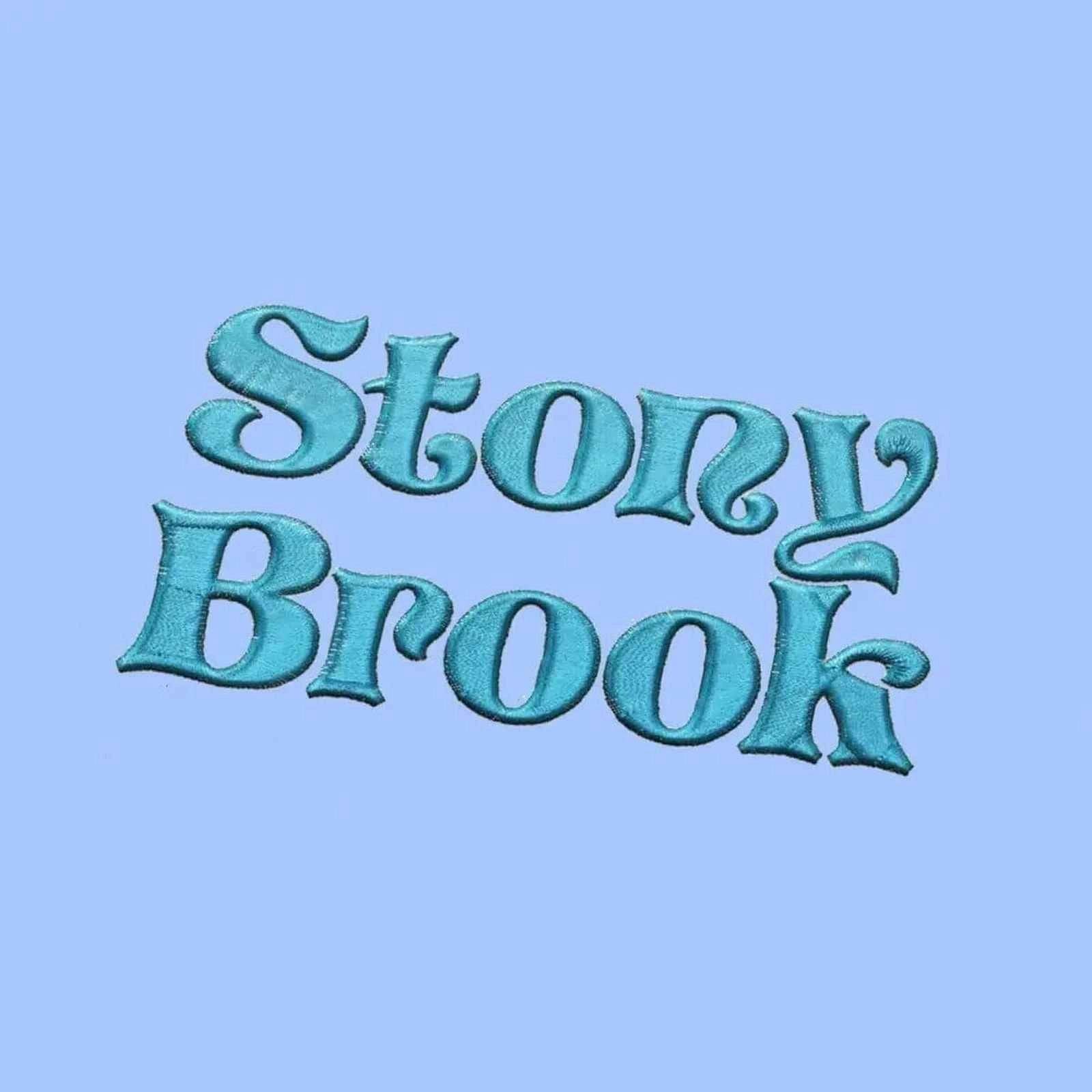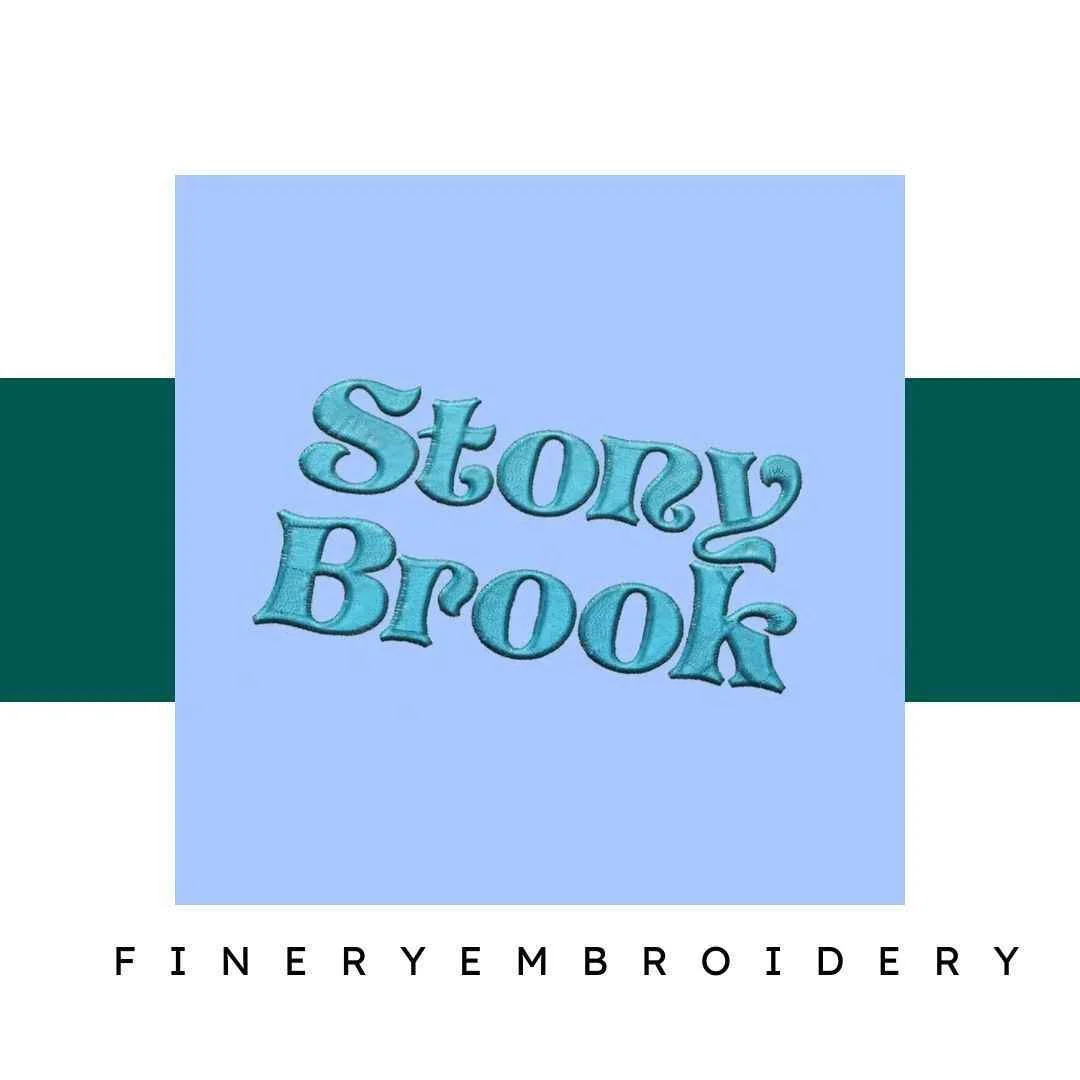
Transform your embroidery projects into masterpieces with the Stony Brook Embroidery Alphabet Font Set, where elegance meets creativity!
Introducing the Stony Brook Embroidery Alphabet Font Set! This exquisite collection is designed to enhance every embroidery project with its elegant and high-quality fonts. Whether you're personalizing clothing, accessories, or home decor, this font set is your ticket to adding a unique touch that stands out. Imagine the joy of making your creations truly your own!
Why You'll Love This Design
The Stony Brook Embroidery Alphabet Font Set is meticulously crafted, allowing you to elevate your embroidery game to new heights. Each font is thoughtfully designed, giving your projects a sophisticated vibe. From stunning monograms to elegant phrases, this collection offers a wide range of options that will inspire you to create with confidence and flair.
Creative Applications
The versatility of the Stony Brook Embroidery Alphabet Font Set is unmatched! Use it to personalize gifts, create unique home accents, or add flair to your fashion items. Let your imagination run wild as you explore the endless possibilities of this font set. It's perfect for both seasoned embroiderers and creative novices alike!
Digitized for Passionate Embroiderers
At Finery Embroidery, we understand the passion behind each project. We’ve poured our hearts into digitizing this font set to ensure that every letter is not just an ordinary character, but a piece of art waiting to be brought to life. Our team of dedicated embroiderers often finds themselves inspired by their creations, making each project a journey of love.
Details & Craftsmanship
Transform your embroidery projects into masterpieces with the Stony Brook Embroidery Alphabet Font Set, where elegance meets creativity!
Introducing the Stony Brook Embroidery Alphabet Font Set! This exquisite collection is designed to enhance every embroidery project with its elegant and high-quality fonts. Whether you're personalizing clothing, accessories, or home decor, this font set is your ticket to adding a unique touch that stands out. Imagine the joy of making your creations truly your own!
Why You'll Love This Design
The Stony Brook Embroidery Alphabet Font Set is meticulously crafted, allowing you to elevate your embroidery game to new heights. Each font is thoughtfully designed, giving your projects a sophisticated vibe. From stunning monograms to elegant phrases, this collection offers a wide range of options that will inspire you to create with confidence and flair.
Creative Applications
The versatility of the Stony Brook Embroidery Alphabet Font Set is unmatched! Use it to personalize gifts, create unique home accents, or add flair to your fashion items. Let your imagination run wild as you explore the endless possibilities of this font set. It's perfect for both seasoned embroiderers and creative novices alike!
Digitized for Passionate Embroiderers
At Finery Embroidery, we understand the passion behind each project. We’ve poured our hearts into digitizing this font set to ensure that every letter is not just an ordinary character, but a piece of art waiting to be brought to life. Our team of dedicated embroiderers often finds themselves inspired by their creations, making each project a journey of love.